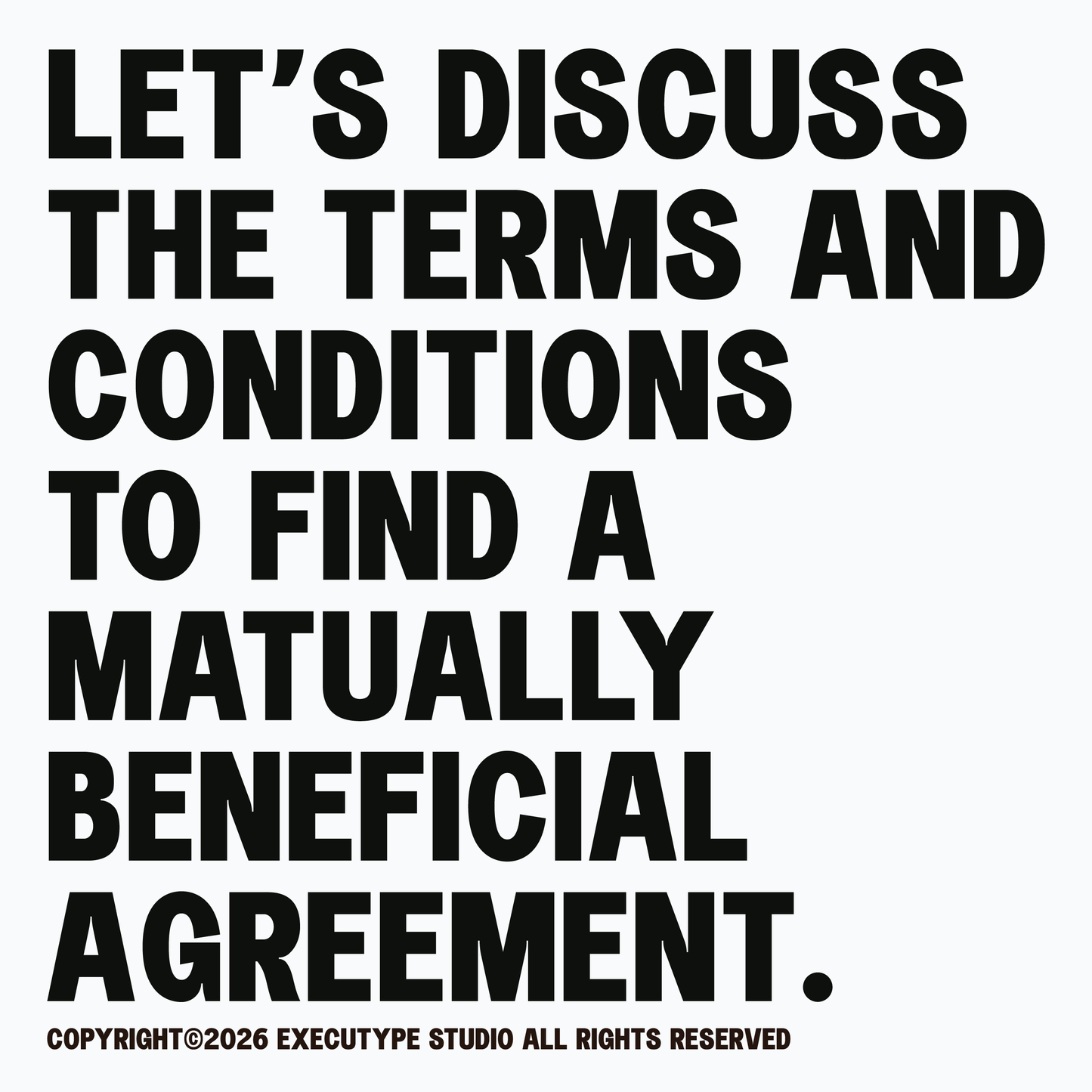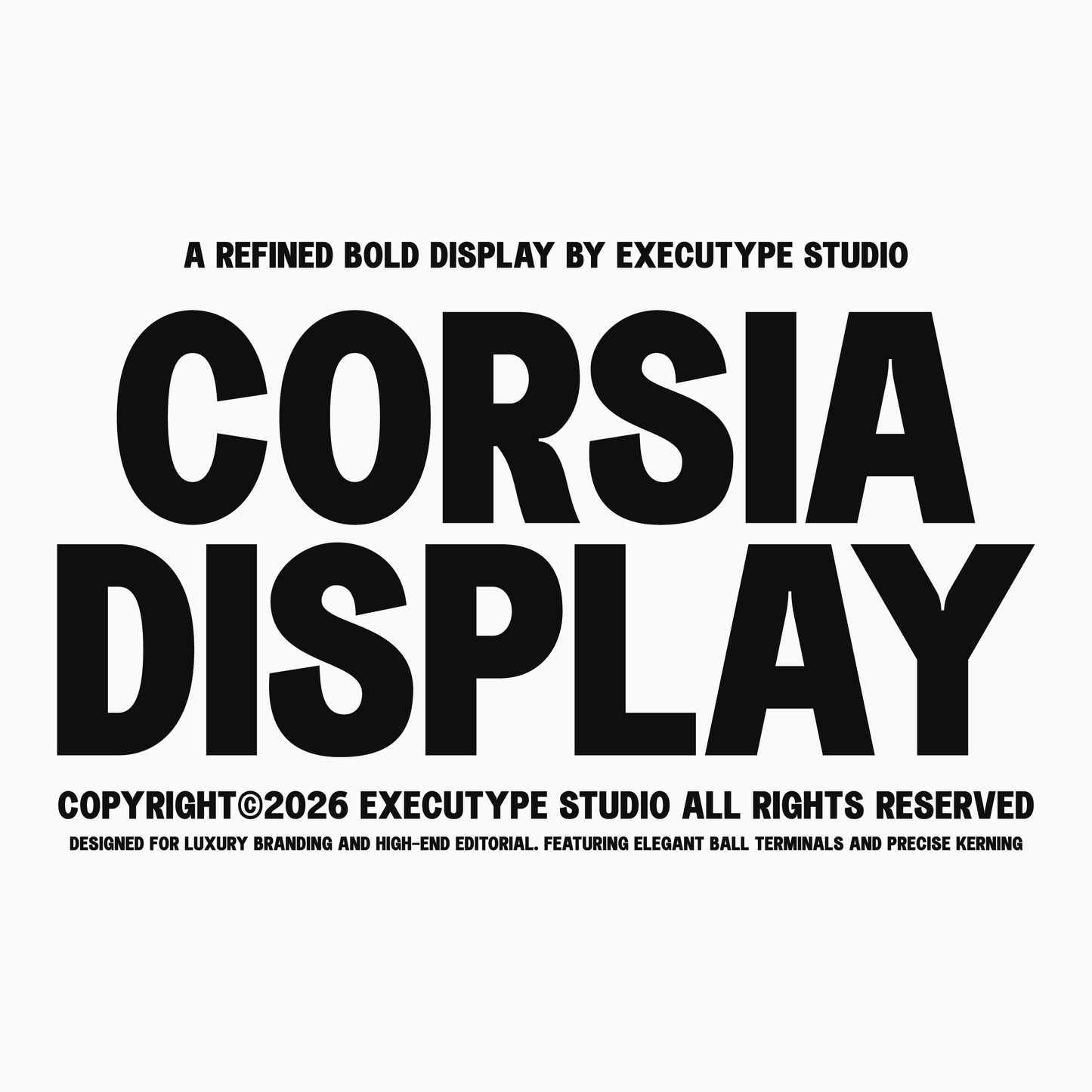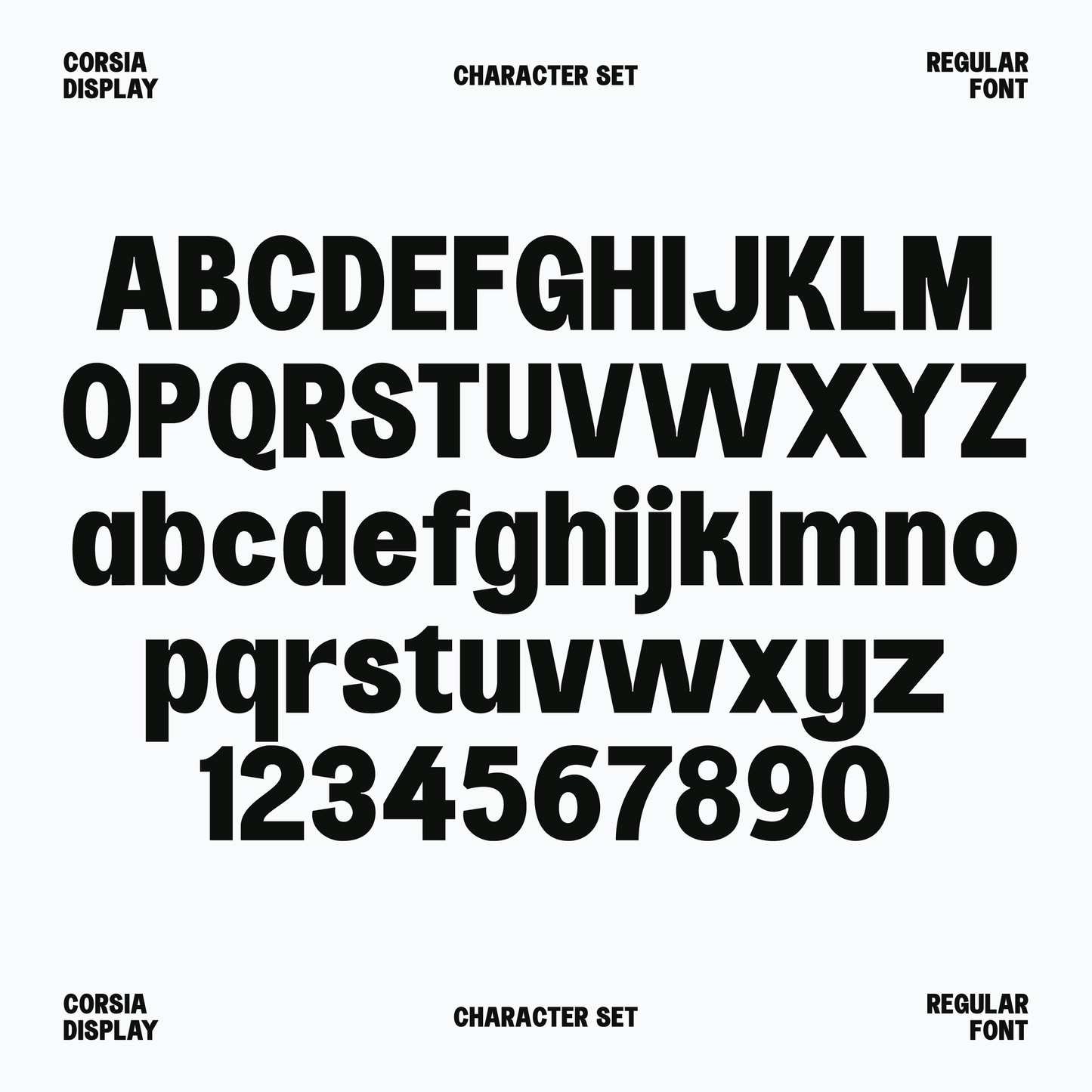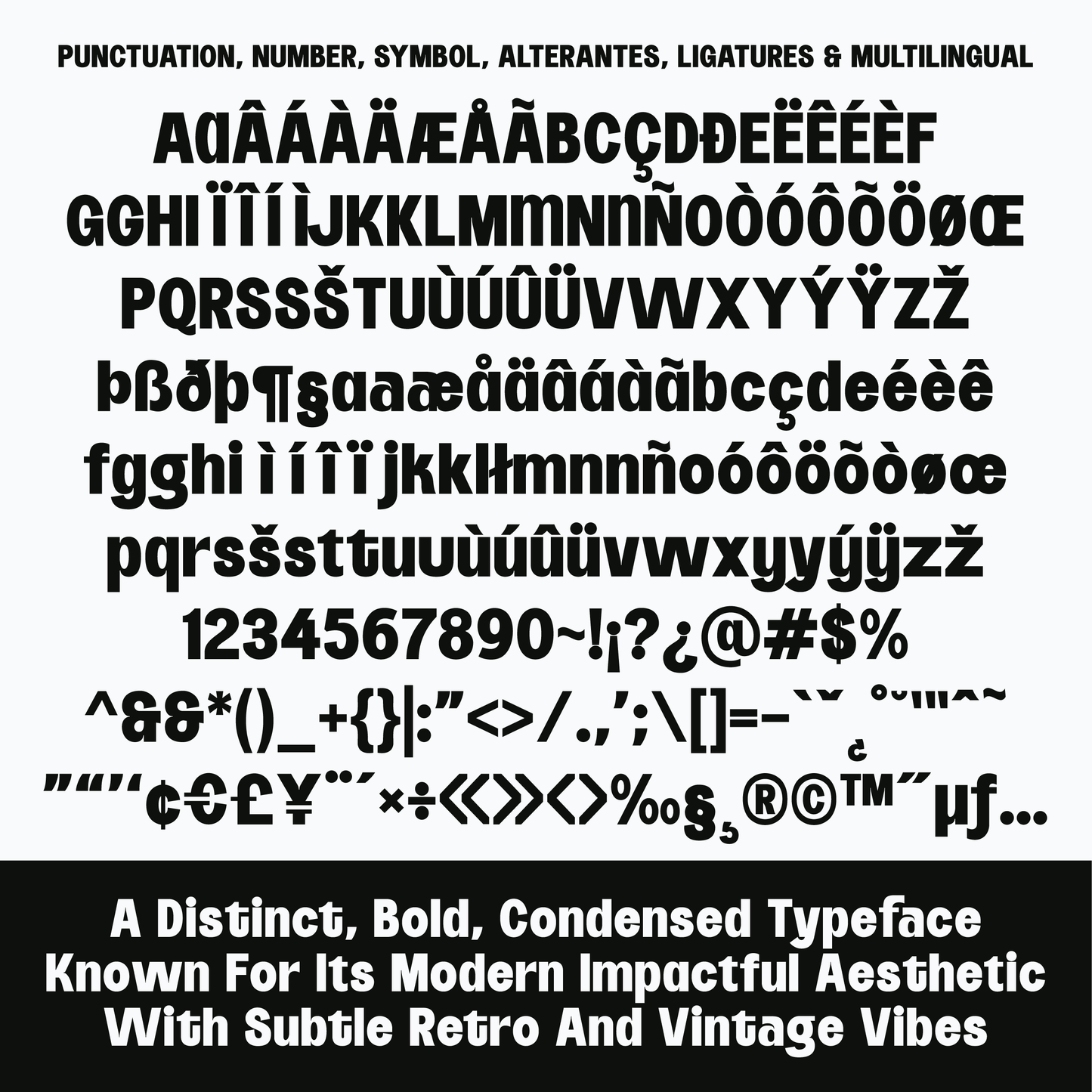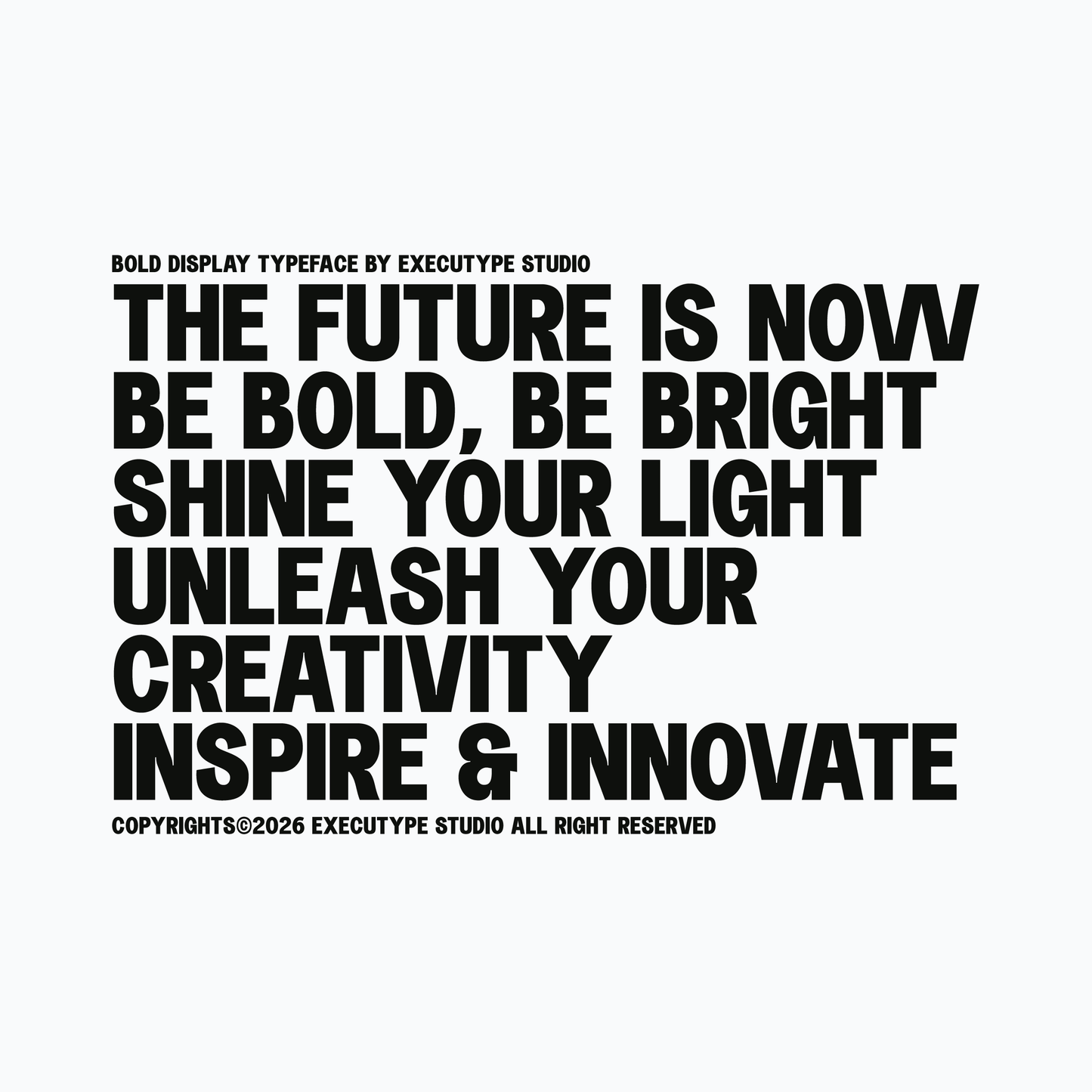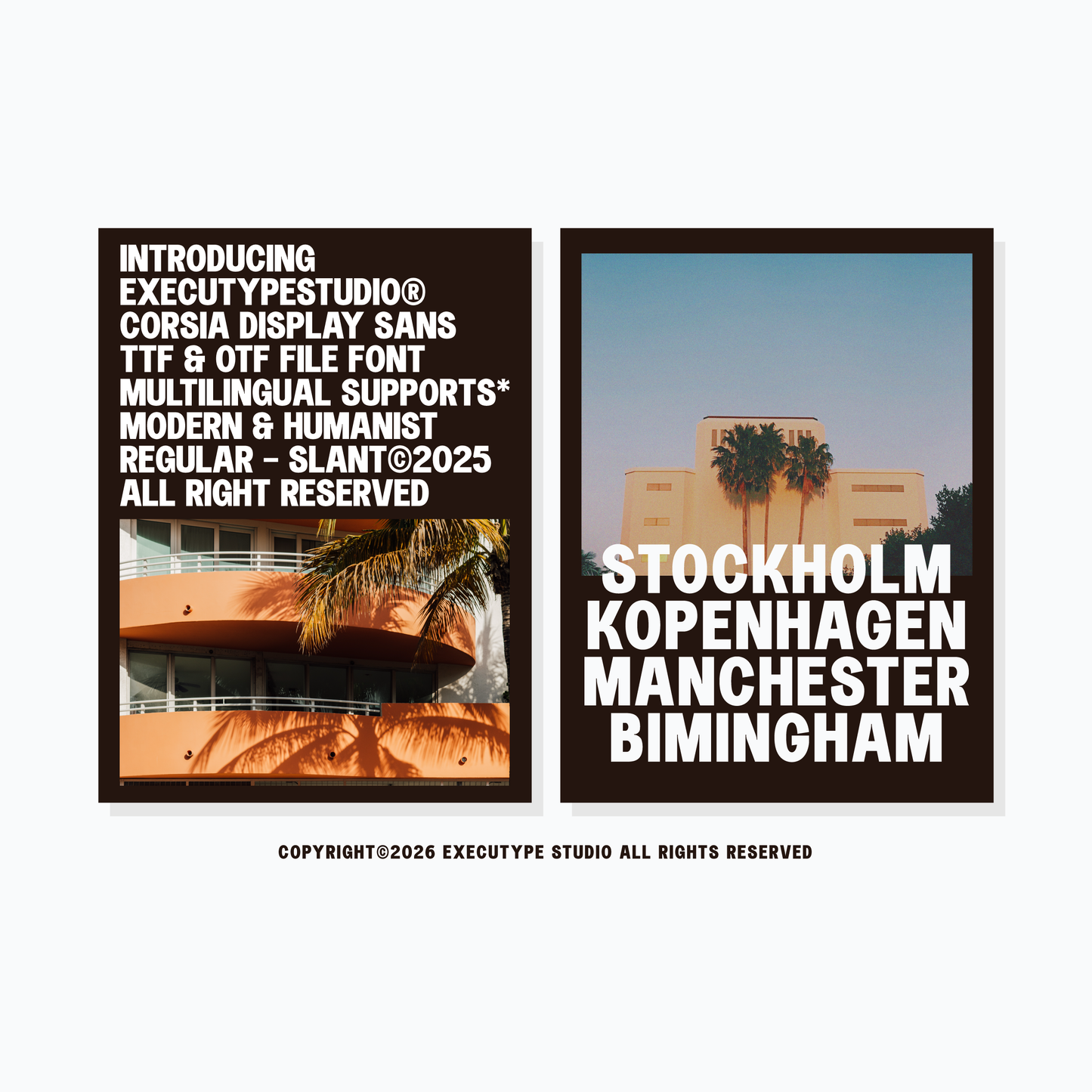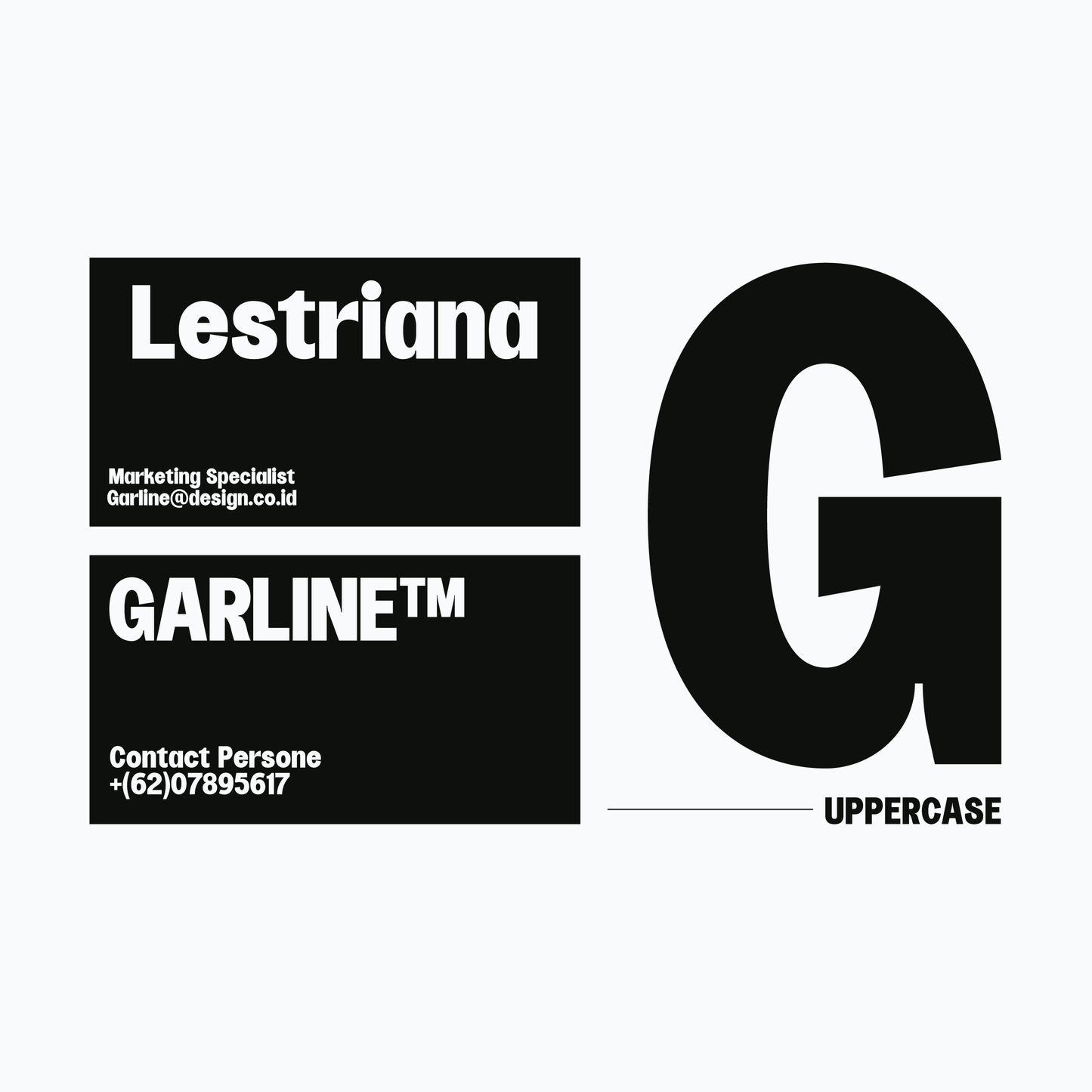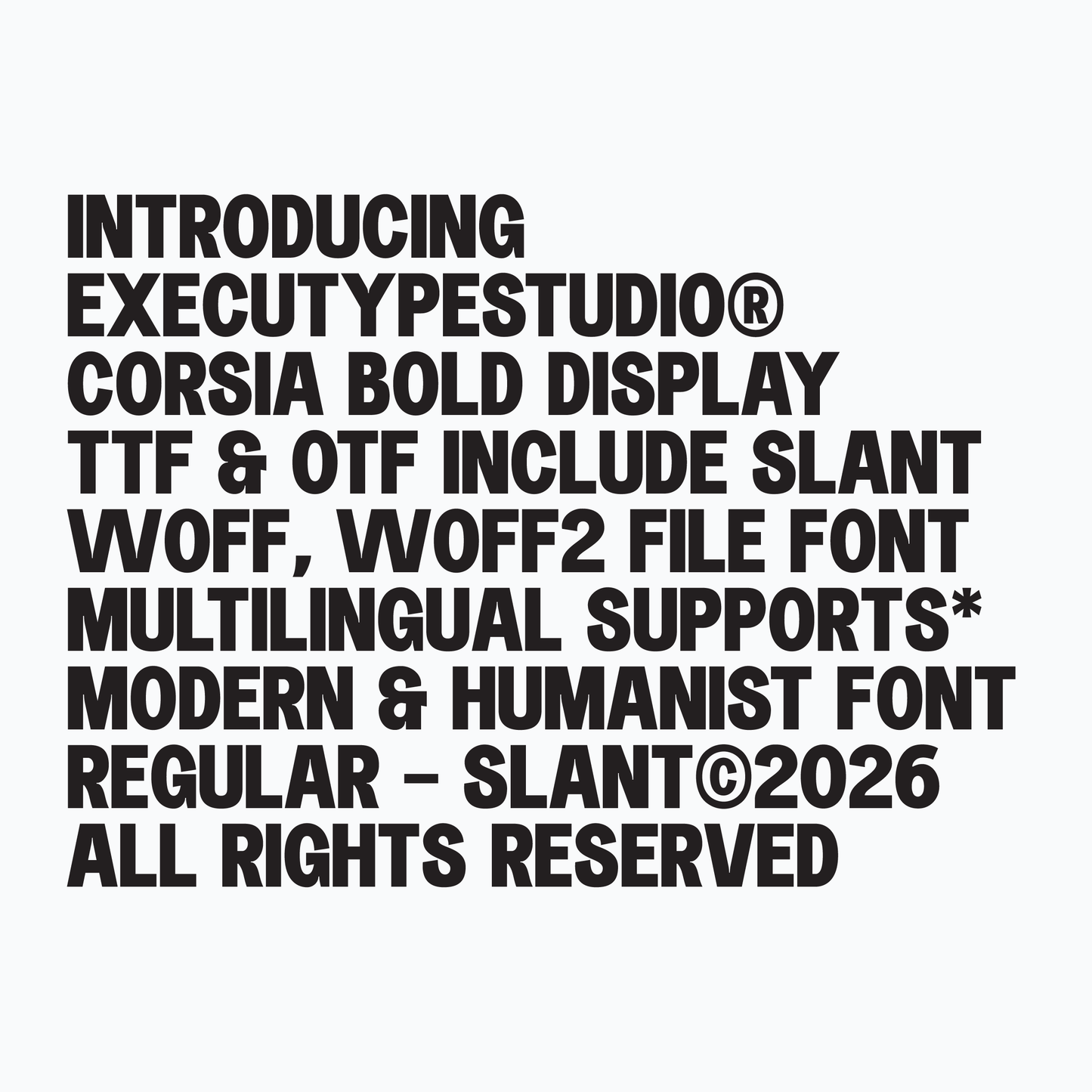
Corsia Display
ExecuType Studio
CORSIA is an impactful typeface designed with sharp details that injects little pockets of personality throughout the type system.